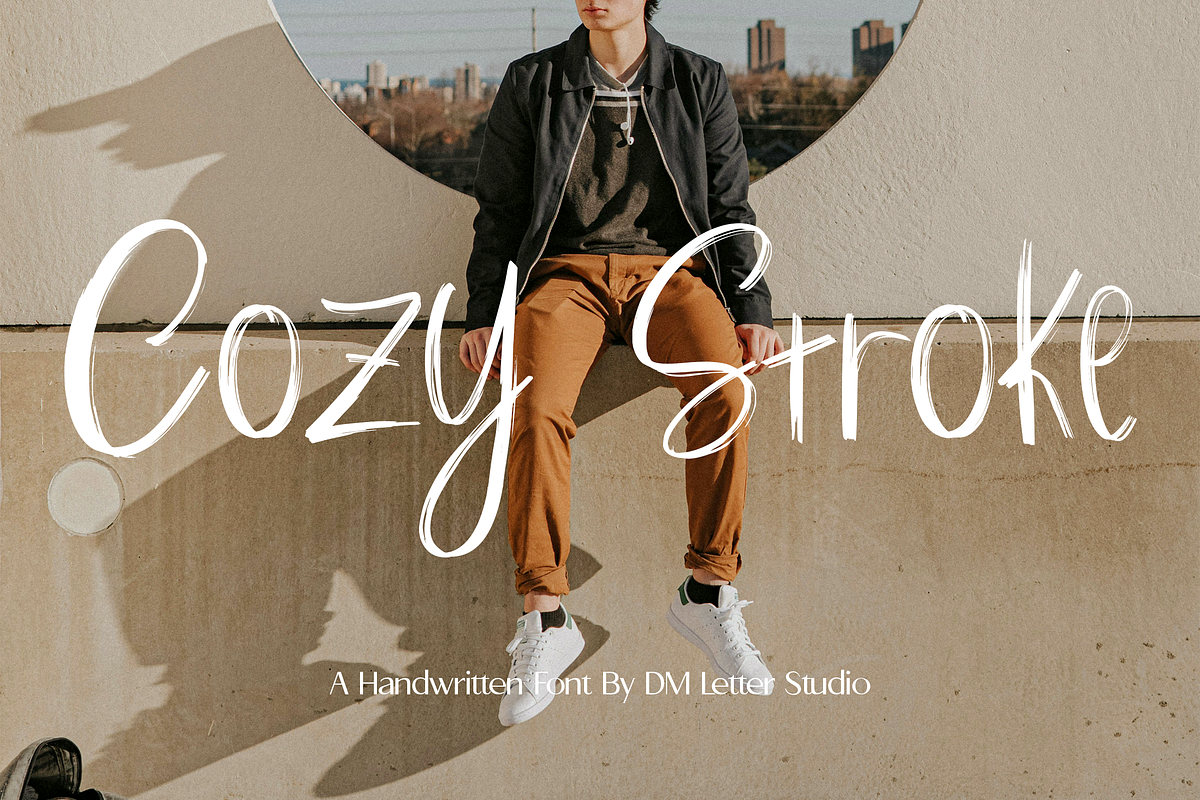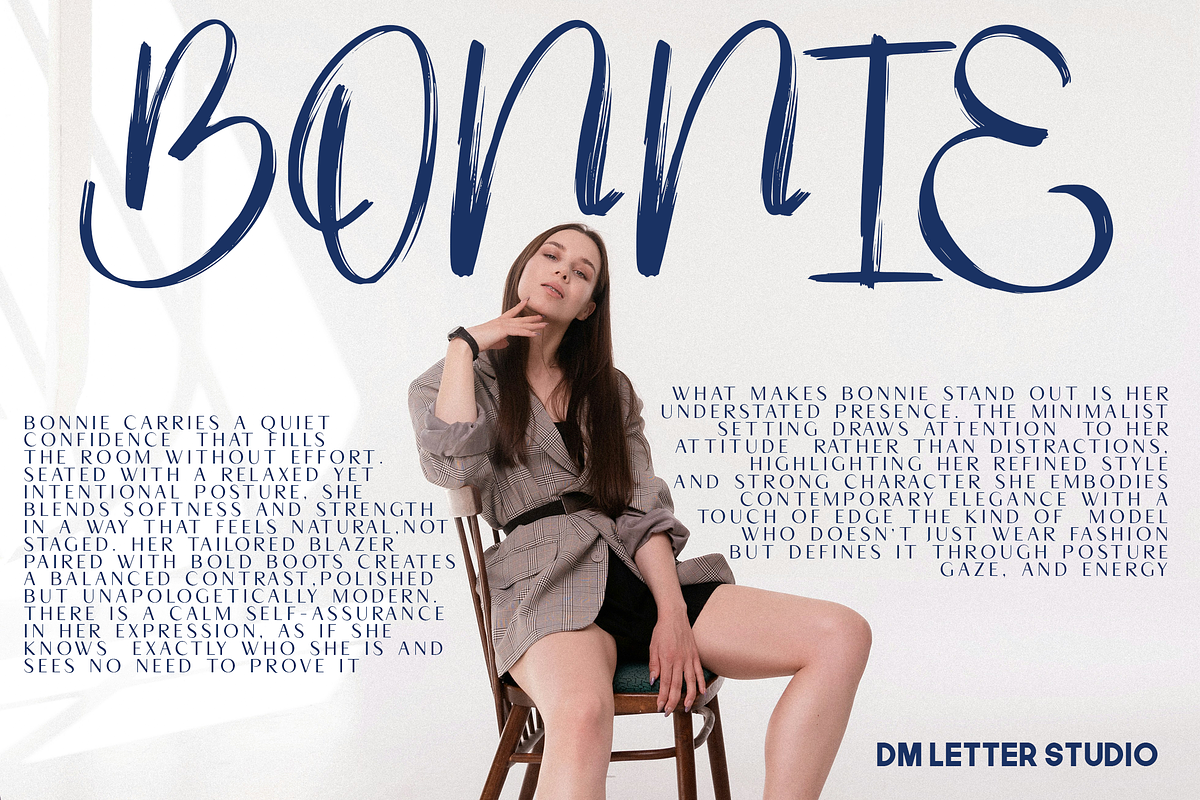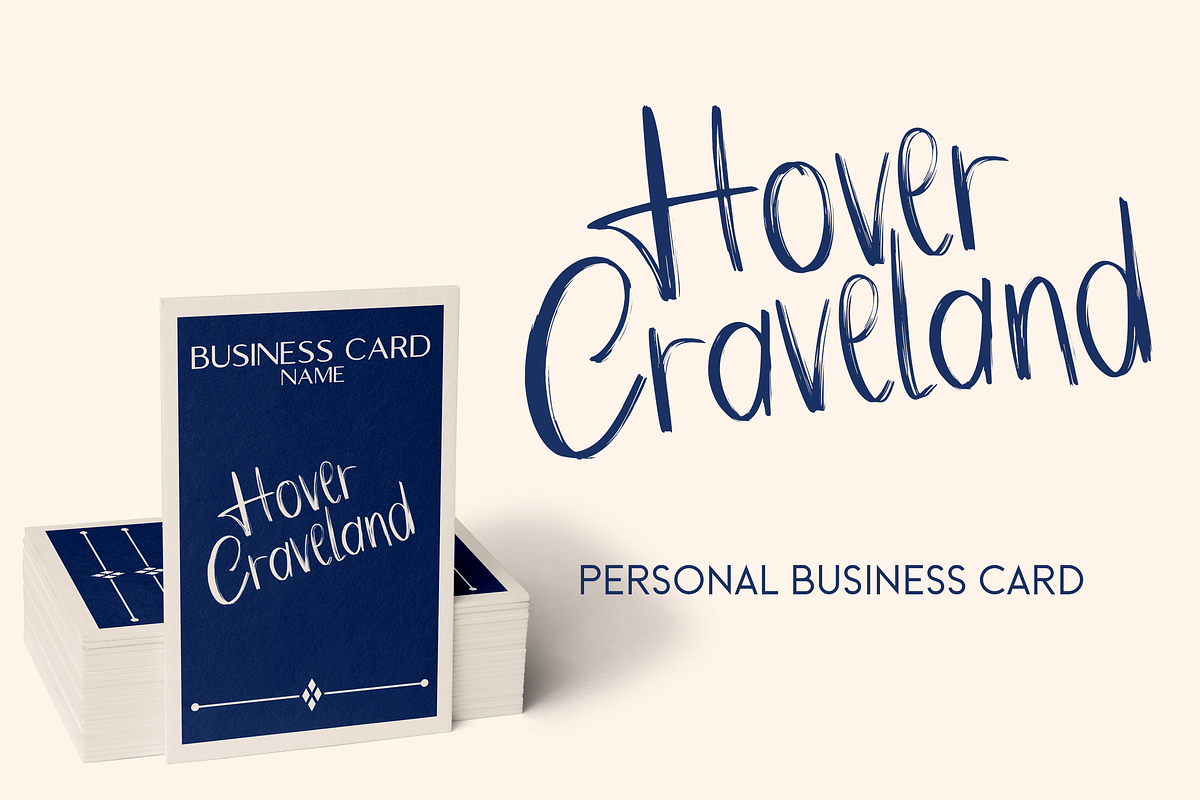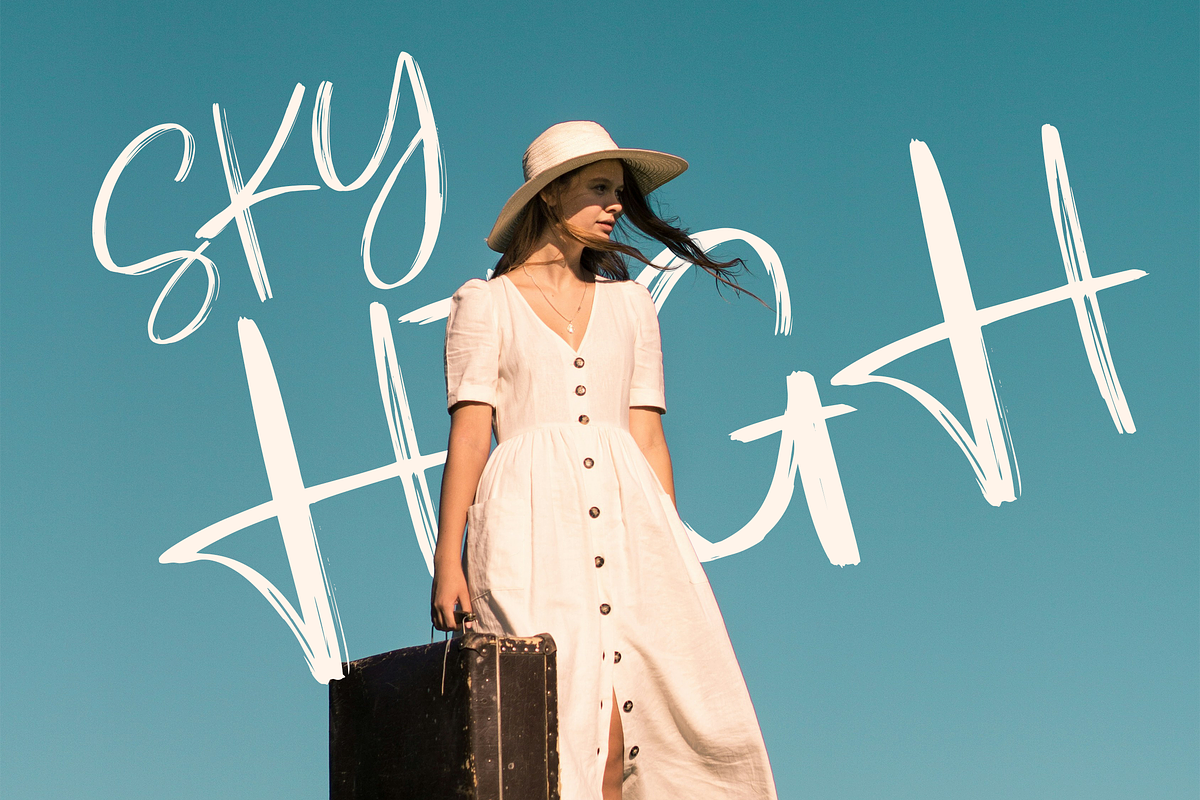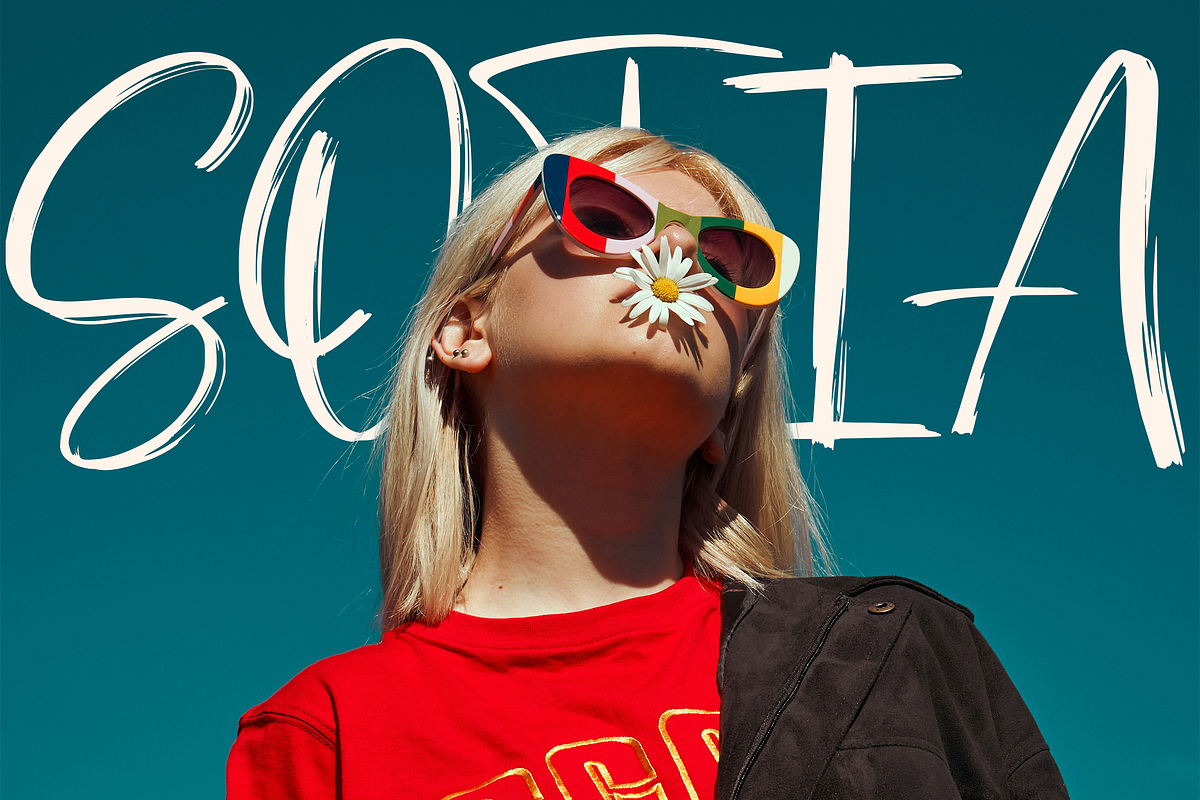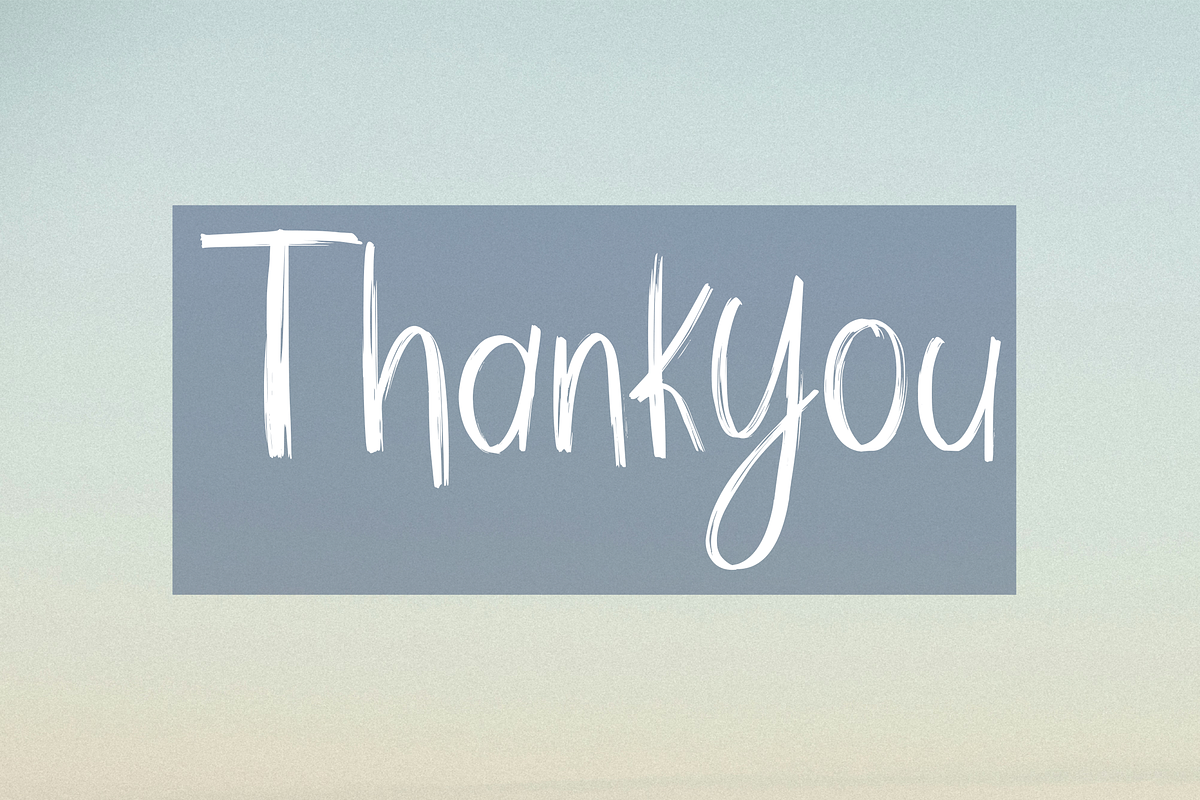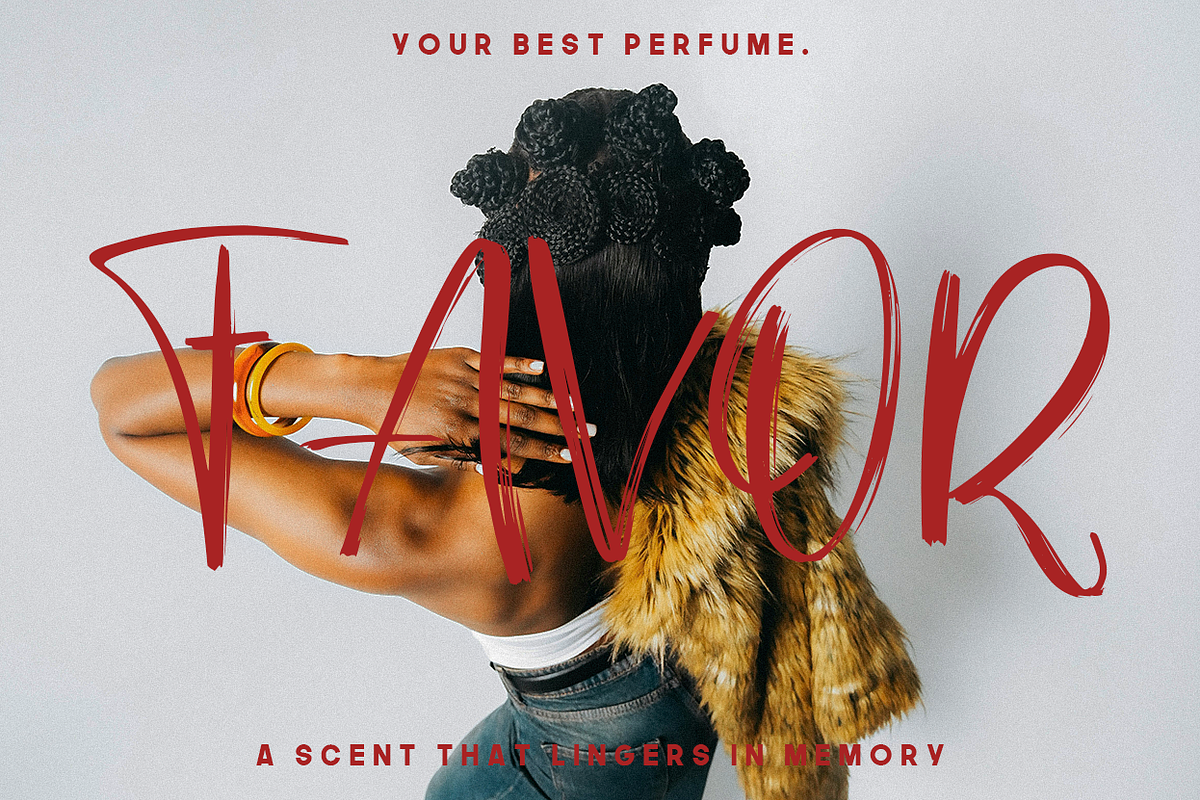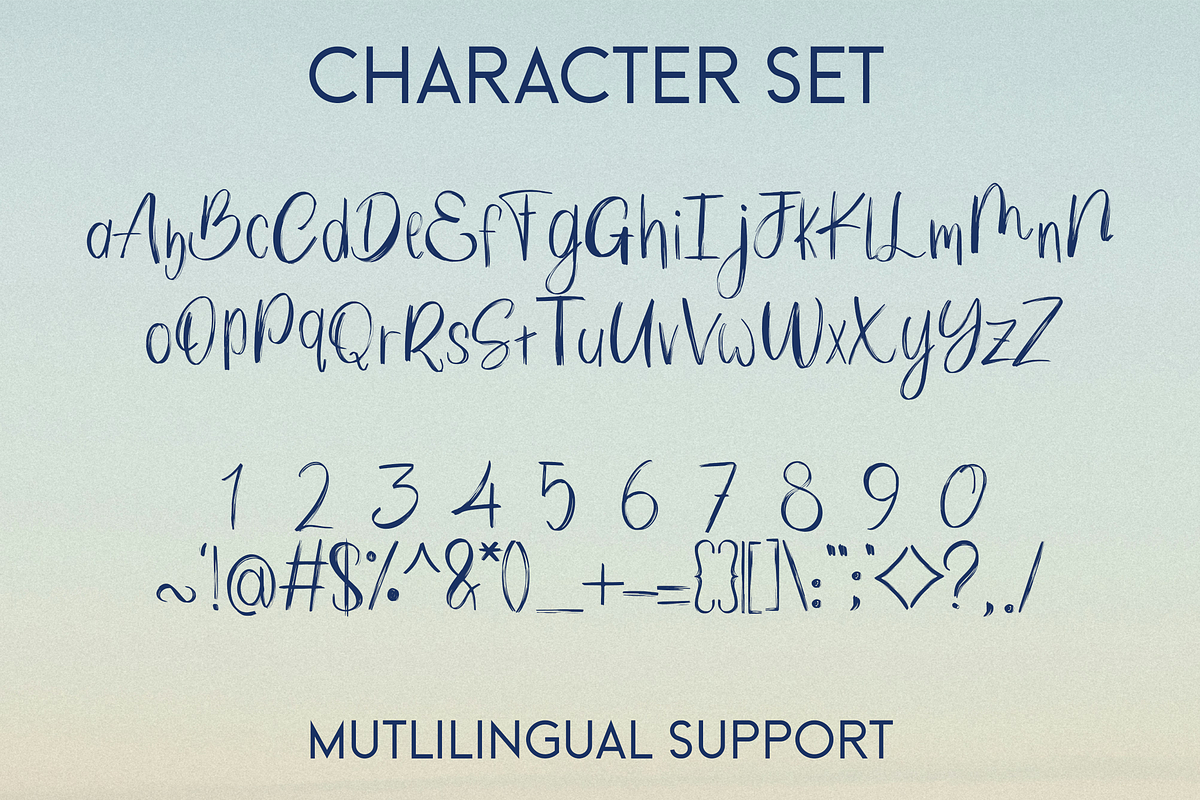
Cozy Stroke
Meet Cozy Stroke, the Handwritten Font
Cozy Stroke is a warm, handwritten font made for calm, friendly designs. The strokes feel natural and relaxed, like a soft pen note on a cozy Sunday. It has a casual rhythm with smooth curves that keep text readable while still feeling personal. Use Cozy Stroke for journals, quotes, planners, café branding, product labels, packaging, Instagram posts, and cozy-themed merch. As a result, your typography feels welcoming, heartfelt, and easy to connect with.
Fast layouts with the Cozy Stroke Font
Start with short phrases, names, or simple headlines for the best impact. After that, add a light shadow or gentle texture to enhance the handmade feel. Because the strokes are soft, keep spacing comfortable and avoid cluttered backgrounds. In addition, pair it with a clean sans serif for details like dates, prices, or product info. Finally, try palettes like cream and brown, sage and ivory, dusty pink and warm gray, or navy and beige for an instant cozy vibe.
Creative uses and quick wins
- Quote posts and Instagram story templates
- Planner pages, journals, and stationery sets
- Café menus and small business branding
- Product labels, packaging, and gift tags
Design tips for Cozy Stroke
Use this font for titles, names, short quotes, and highlight text. Also, keep line length moderate so the handwritten flow stays clear. For print, test on textured paper or warm backgrounds for a premium handmade feel. For digital, increase the size slightly for better readability on mobile screens. Finally, combine it with simple doodles, leaf icons, or minimal frames to complete the cozy look.